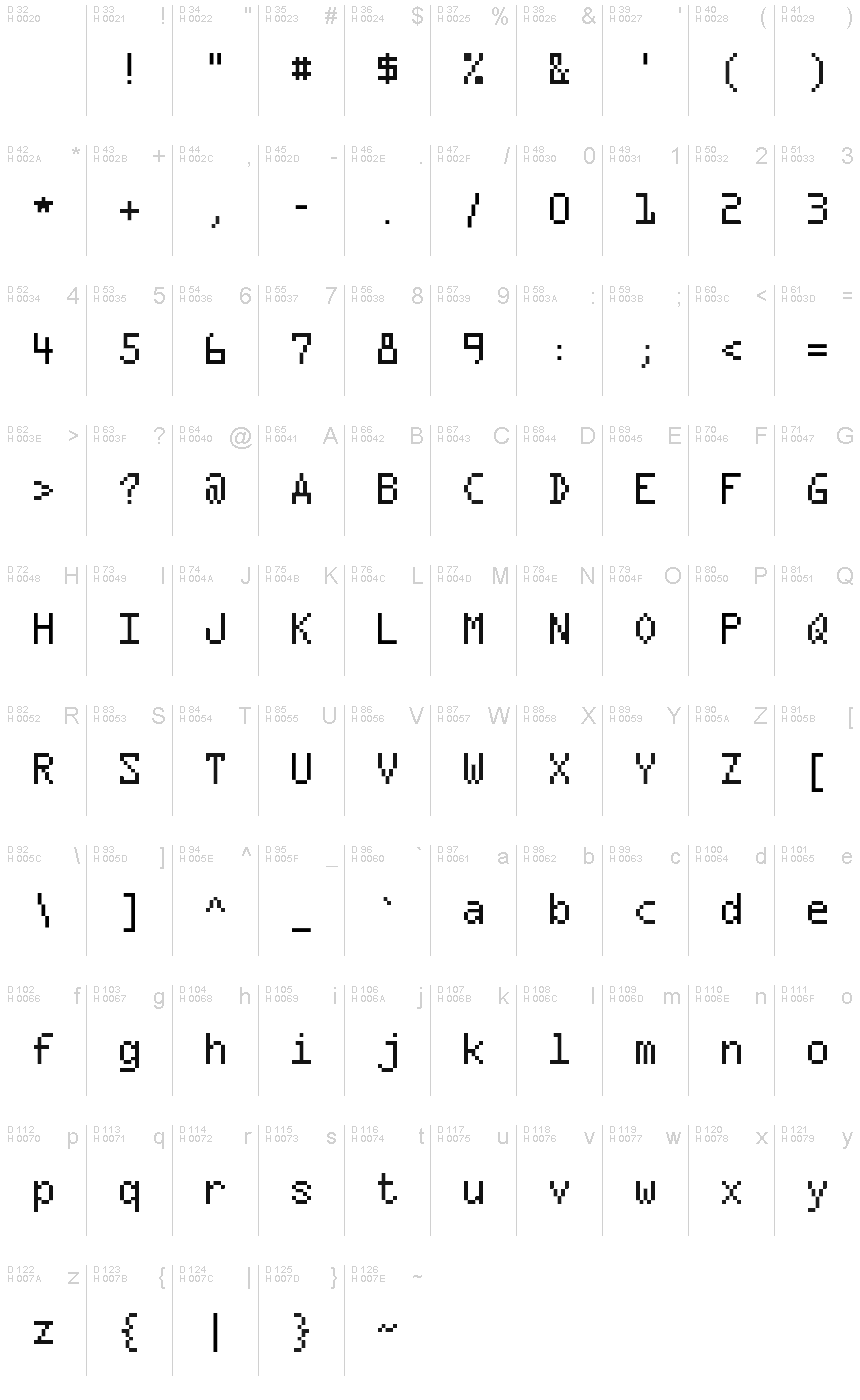
Optixal
Optixal by Jeti is a captivating pixel font that draws inspiration from OCR (Optical Character Recognition) technology. Its pixelated aesthetic evokes a retro-futuristic vibe, seamlessly blending classic digital aesthetics with a modern sensibility. The sharp, angular letterforms and stark contrasts create a bold, eye-catching visual impact, making Optixal an excellent choice for designs that demand a distinctive, attention-grabbing presence.
This font's unique style lends itself well to a variety of applications, from game interfaces and digital signage to experimental typography and retro-inspired branding. Its versatility allows designers to explore the juxtaposition of the digital and the analog, creating striking visual narratives that resonate with audiences seeking a touch of nostalgia and technological innovation.